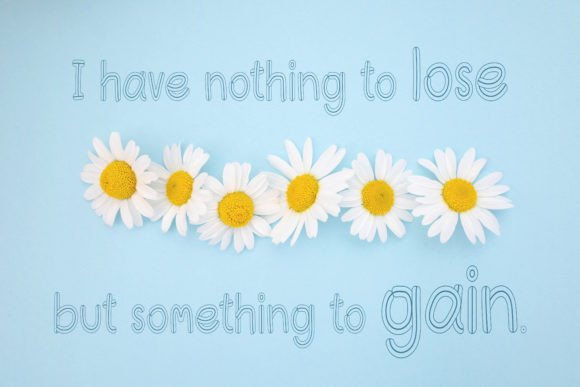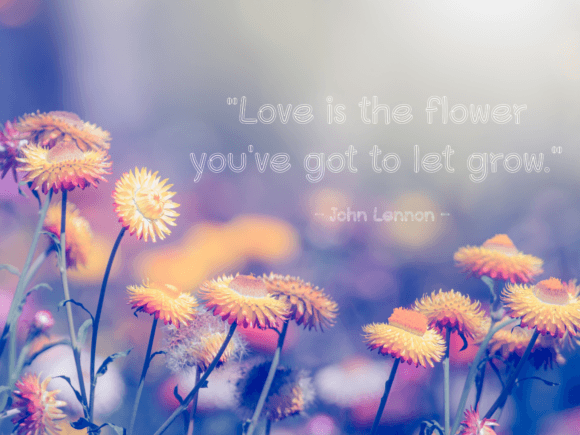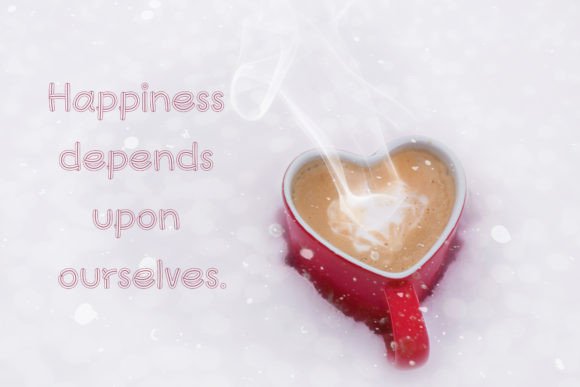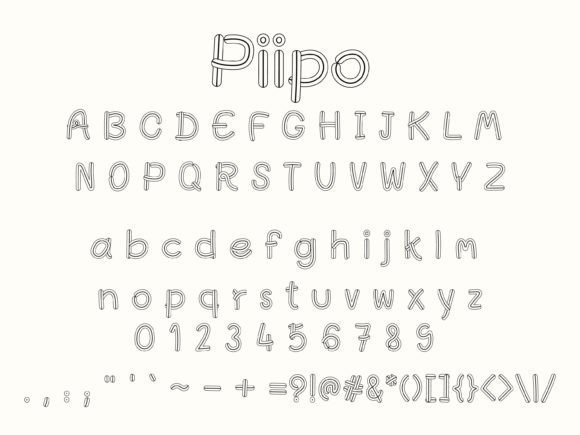
Introduction to Piipo Font
Piipo is a playful and fun display font.
Add it confidently to your projects and you will love the results .
Key Features of Piipo Font
Why Choose Piipo Font?
Piipo Font offers exceptional quality and versatility, making it a valuable addition to your design toolkit. Whether you’re creating for personal projects or commercial use, Piipo Font delivers professional results.